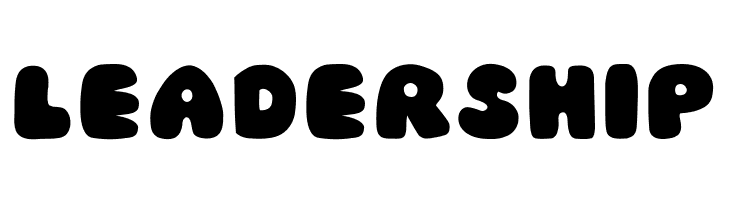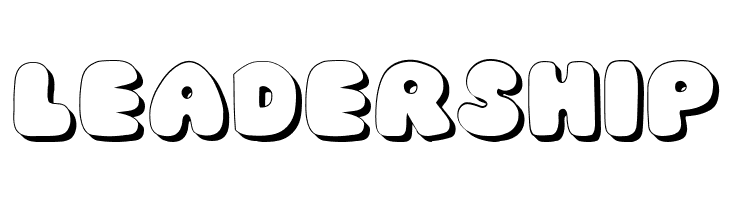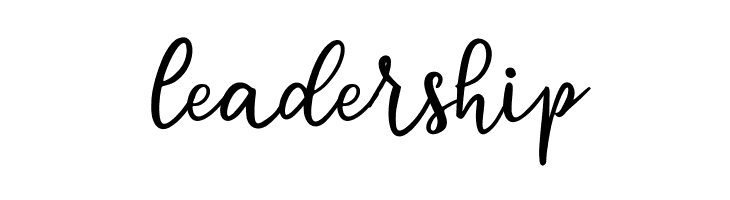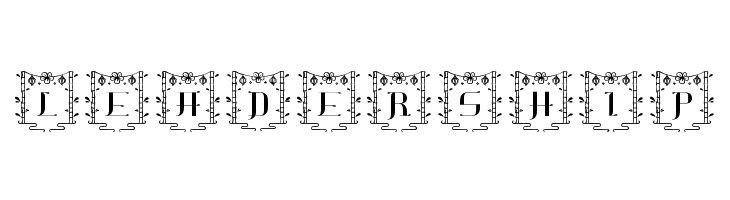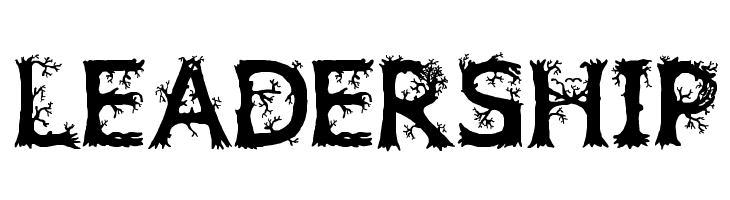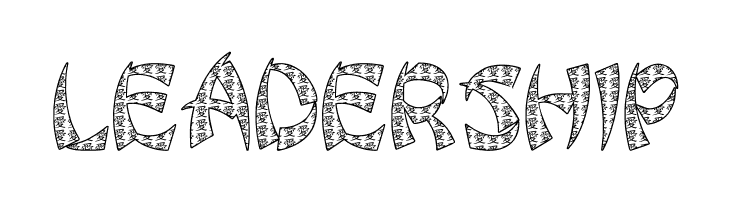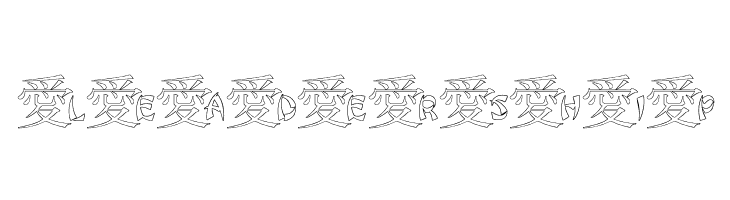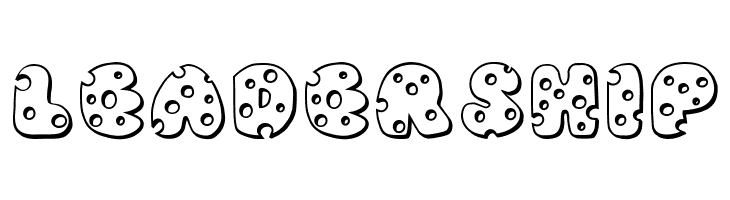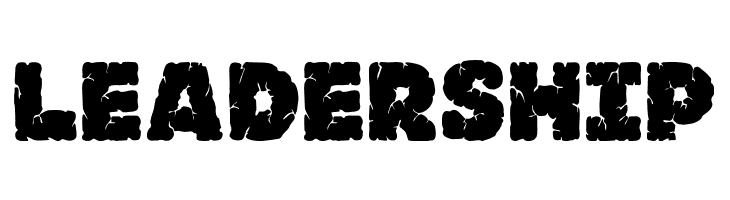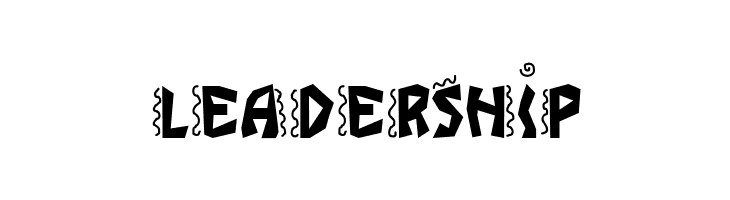
A bold, textured font with a rocky, natural appearance.
A bold, textured font with a rugged, stone-like appearance.
A whimsical snowman-themed font with bold, clear characters.
An ornate and decorative font with intricate detailing and vintage charm.
An ornate and decorative font with intricate detailing and vintage flair.
A decorative, nature-inspired font with intricate, vine-like details.
An ornate, vintage-style decorative font with intricate detailing.
A bold, playful display font with whimsical, decorative elements.
A playful, bold font with rounded, chubby characters ideal for fun and engaging designs.
A playful, bold font with rounded, bubble-like characters and a 3D shadow effect.
A playful, cheese-inspired font with bold, rounded letters and fun details.
A decorative and ornate font with bold, framed capital letters.
A graceful, cursive font with a signature-like style.
A playful design of interconnected jigsaw puzzle pieces forming characters.
A bold, three-dimensional font with a shadow effect and striped pattern.
A bold, decorative font with a 3D effect and geometric forms.
A bold, expressive handwritten font with fluid and lively strokes.
A flowing, cursive script font with interconnected characters and a bold presence.
A playful and elegant handwritten script font.
A bold, decorative font with a dripping effect, ideal for creative projects.
A whimsical font with letters integrated into penguin illustrations, perfect for playful designs.
A decorative font with intricate patterns and bold, artistic strokes.
A whimsical, decorative font with letters embedded in playful character illustrations.
A classic serif font with sharp serifs and elegant curves, offering a timeless and sophisticated look.
A decorative font with angelic figures integrated into each letter, offering a mystical and ethereal style.